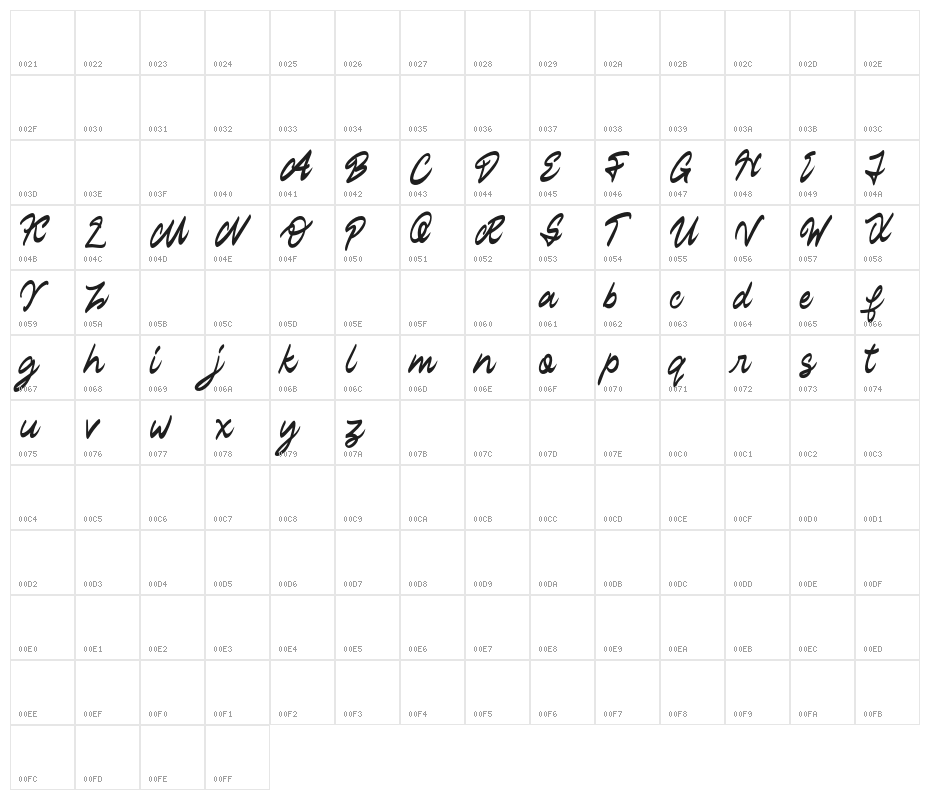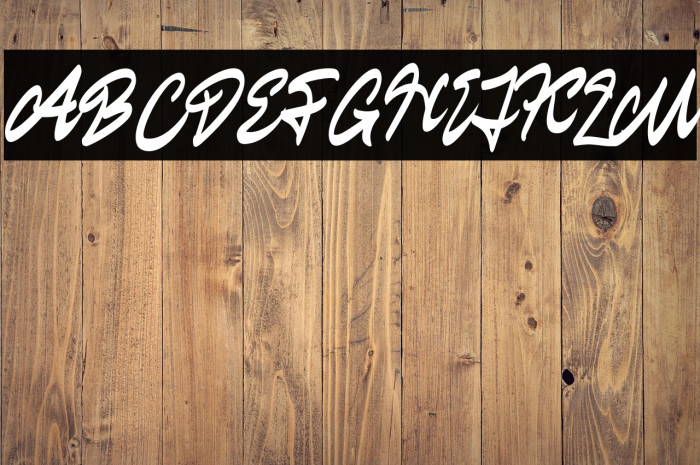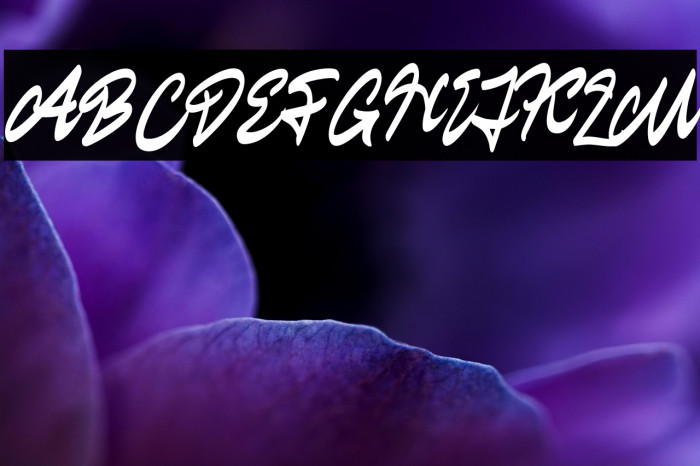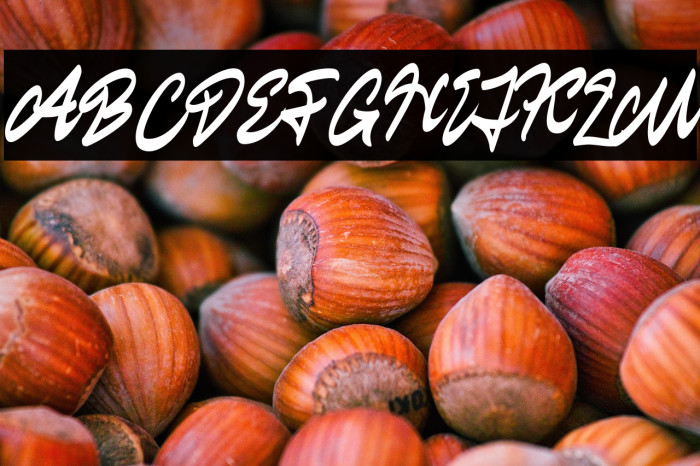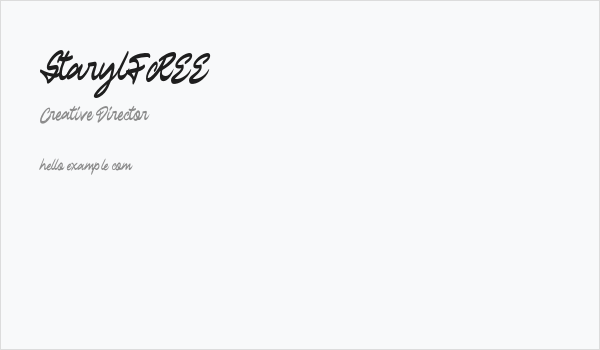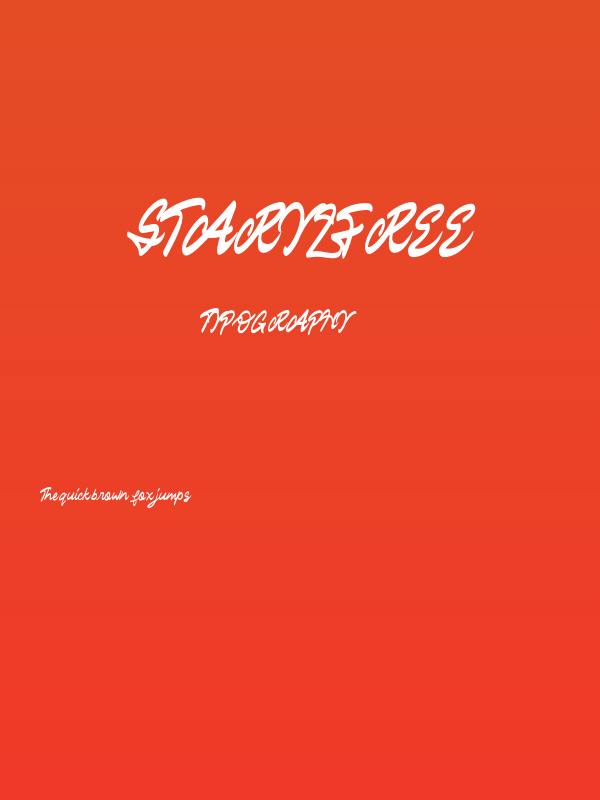
StarylFREE Font
StarylFREE Description
This font exhibits a dynamic and fluid script style, characterized by its cursive, handwritten appearance. The letters are interconnected, creating a seamless flow that mimics natural handwriting. The strokes are bold and expressive, with a consistent thickness that adds to its legibility. The uppercase letters maintain a sense of elegance and formality, while the lowercase letters are more relaxed and casual. This font is ideal for projects that require a personal touch, such as invitations, greeting cards, or branding materials that aim to convey warmth and approachability.
| Proposed Projects | Ideal for invitations, greeting cards, personal branding, and any project needing a warm, personal touch. |